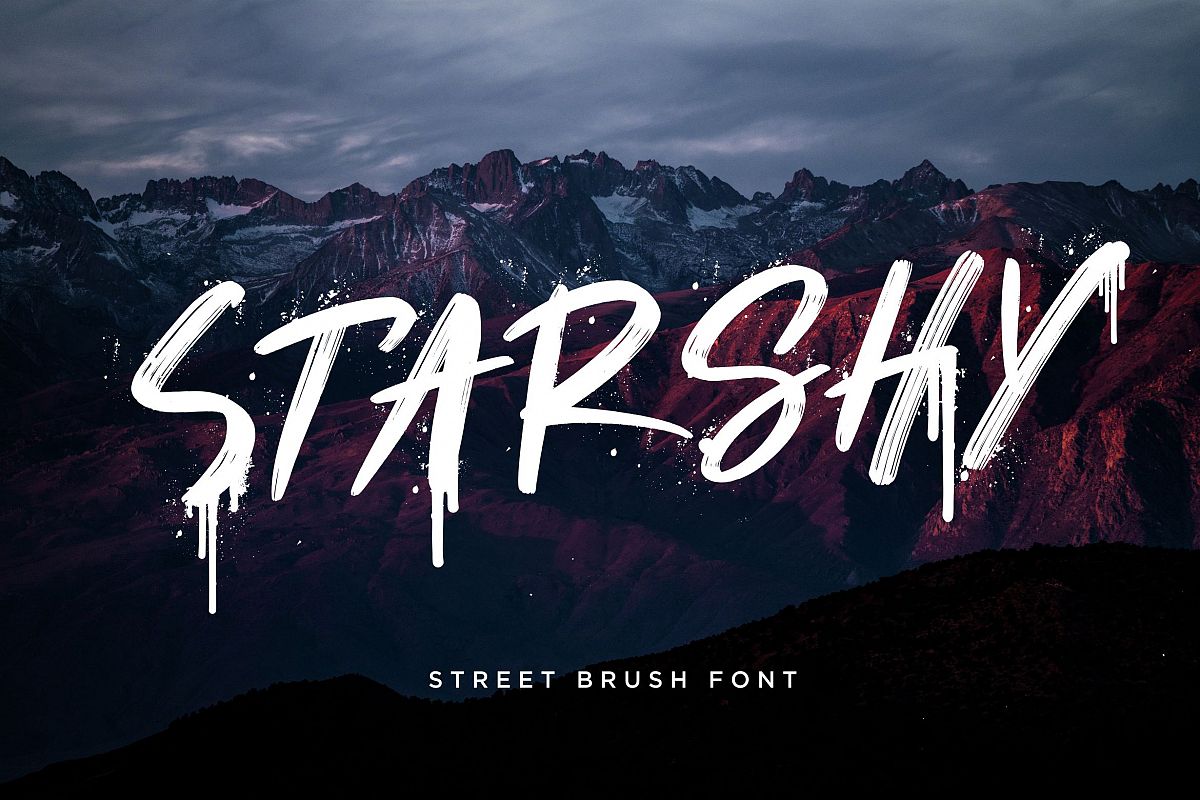
Starshy Street Brush
Starshy Street Brush is a brush font with street graffiti style and scratch effect make this font looks bold and natural.
Starshy Street Brush is perfect for branding projects, logo, wedding designs, social media posts, advertisements, product packaging, product designs, label, photography, watermark, invitation, stationery and any projects that need handwriting taste.
• Tons of glyphs
• Fonts include multilingual support for; Ã¤ ö ü Ä Ö Ü ß ¿ ¡